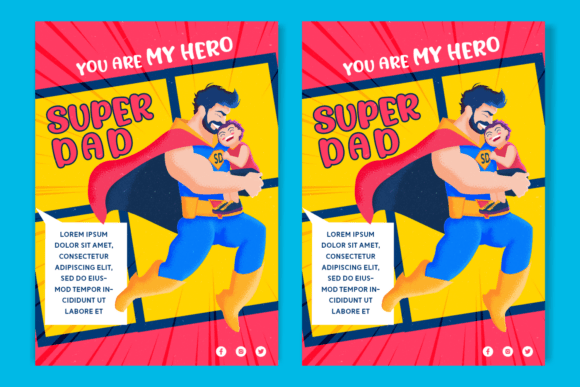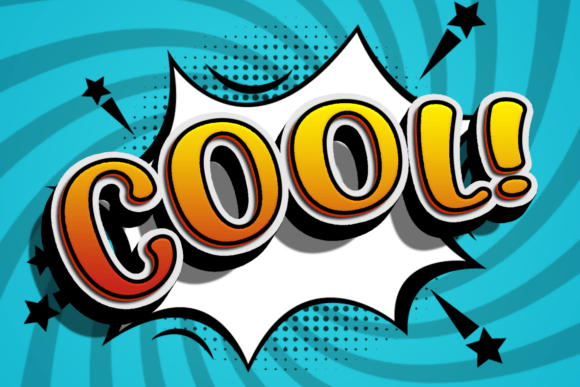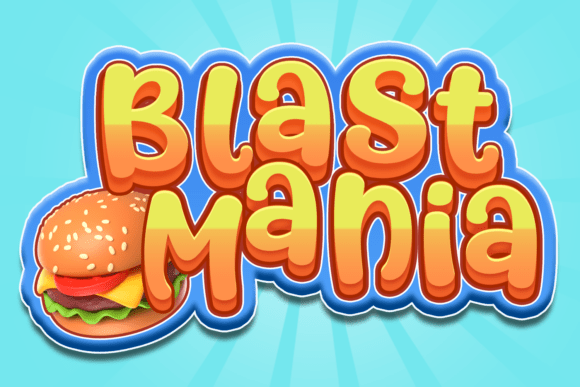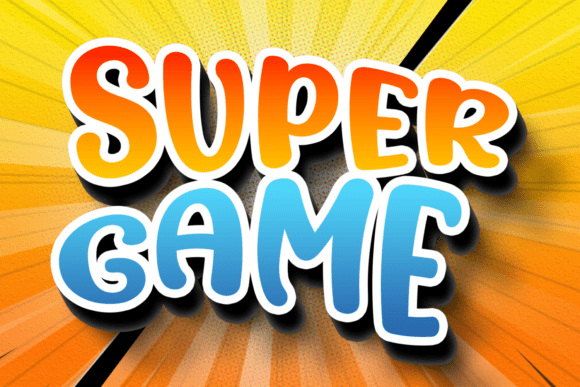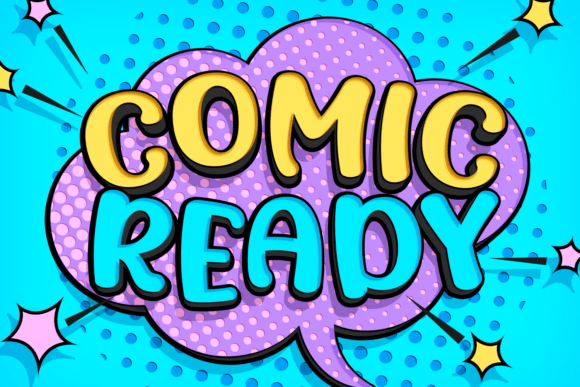
Introducing Comic Ready Font: The Ultimate Choice for Vibrant and Dynamic Designs
Are you looking for a font that can add a burst of energy and fun to your designs? Look no further than Comic Ready Font! This vibrant and dynamic cartoon font is perfect for creating comic strips, children’s books, social media graphics, and poster designs that grab attention and leave a lasting impression.
What Makes Comic Ready Font So Special?
Comic Ready Font is a unique and playful font that exudes a sense of fun and excitement. Its chunky letterforms, playful curves, and bold outlines create a perfect comic book style that is sure to stand out. The font’s bright colors and outlined style evoke a sense of movement and fun, making it an excellent choice for projects that need to capture the imagination of your audience.
The Perfect Font for Comic Strips and Children’s Books
Comic Ready Font is ideal for creating comic strips and children’s books that require a fun and engaging font. The font’s bold and playful style is perfect for telling stories that need to capture the imagination of young readers. Whether you’re creating a comic strip, a children’s book, or a educational resource, Comic Ready Font is the perfect choice.
Why Designers and Crafters Love Comic Ready Font
Designers and crafters love Comic Ready Font for its versatility and ease of use. The font is perfect for creating a wide range of designs, from social media graphics and poster designs to craft projects and DIY tutorials. The font’s bold and playful style makes it easy to use and customize, allowing designers and crafters to create unique and engaging designs that reflect their personal style.
The Benefits of Using Comic Ready Font
There are many benefits to using Comic Ready Font in your designs. Some of the benefits include:
- Attention-grabbing style: Comic Ready Font is designed to grab attention and leave a lasting impression. Its bold and playful style makes it perfect for projects that need to stand out.
- Versatility: Comic Ready Font is a versatile font that can be used for a wide range of designs, from comic strips and children’s books to social media graphics and poster designs.
- Ease of use: Comic Ready Font is easy to use and customize, making it perfect for designers and crafters of all skill levels.
- Fun and engaging: Comic Ready Font is a fun and engaging font that can add a burst of energy and excitement to your designs.
How to Use Comic Ready Font in Your Designs
Using Comic Ready Font in your designs is easy! Here are a few tips to get you started:
- Choose the right color scheme: Comic Ready Font looks best in bright and bold colors. Choose a color scheme that reflects the tone and style of your design.
- Experiment with different styles: Comic Ready Font can be used in a variety of styles, from bold and playful to fun and quirky. Experiment with different styles to find the one that works best for your design.
- Use it with other fonts: Comic Ready Font can be used with other fonts to create a unique and engaging design. Try pairing it with a sans-serif font for a fun and playful look.
Comic Ready Font is a vibrant and dynamic cartoon font that is perfect for creating comic strips, children’s books, social media graphics, and poster designs that grab attention and leave a lasting impression. Its chunky letterforms, playful curves, and bold outlines create a perfect comic book style that is sure to stand out. Whether you’re a designer or crafter, Comic Ready Font is a great choice for any project that needs a burst of energy and fun.